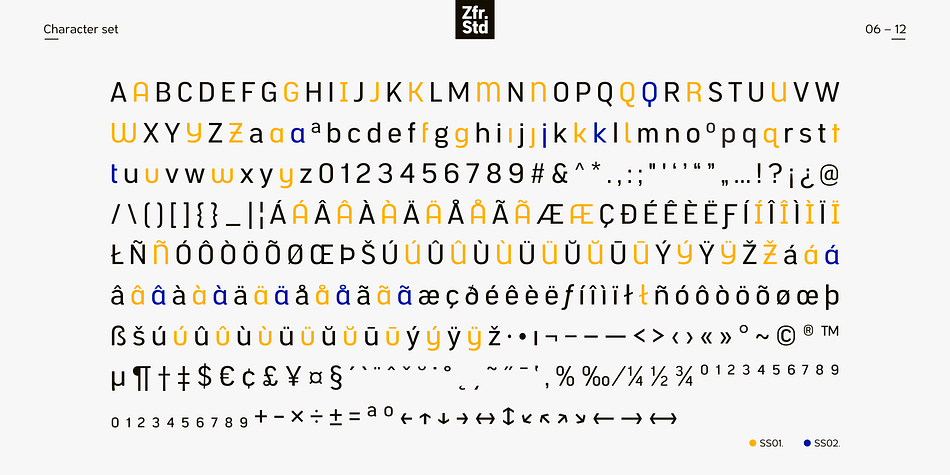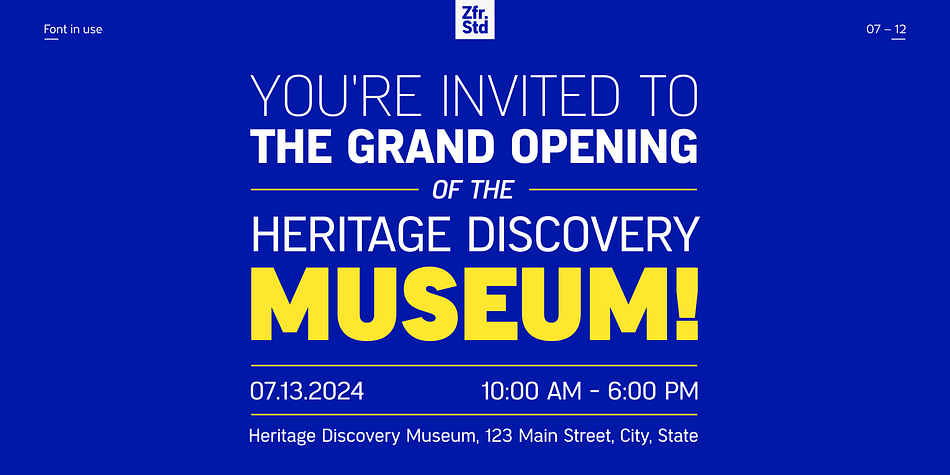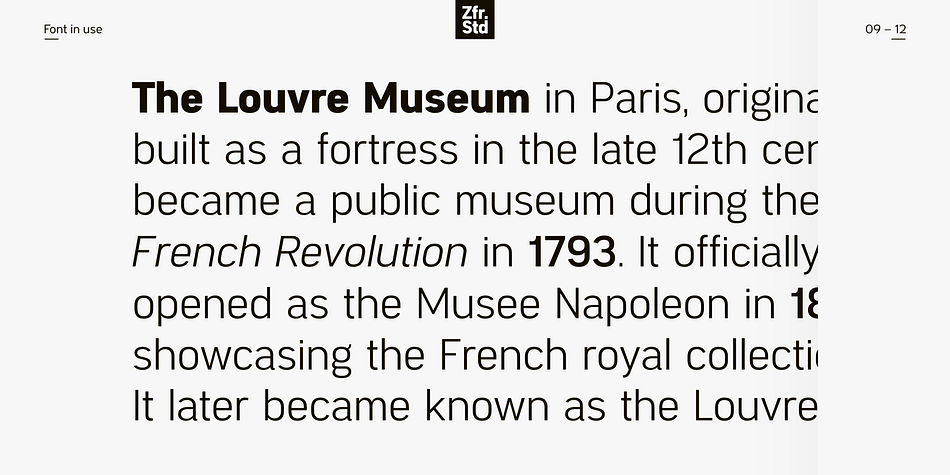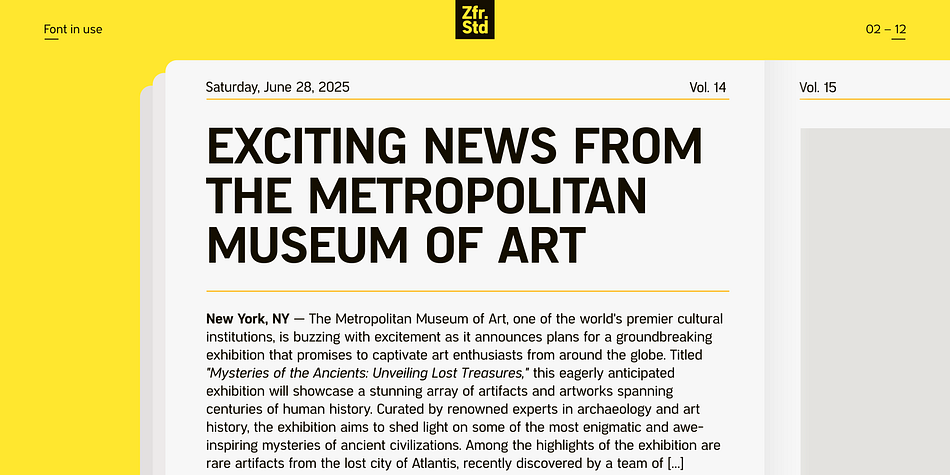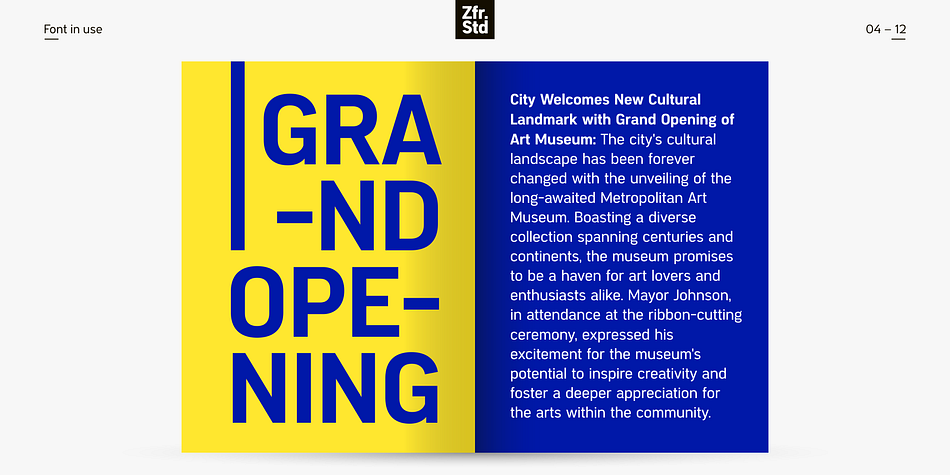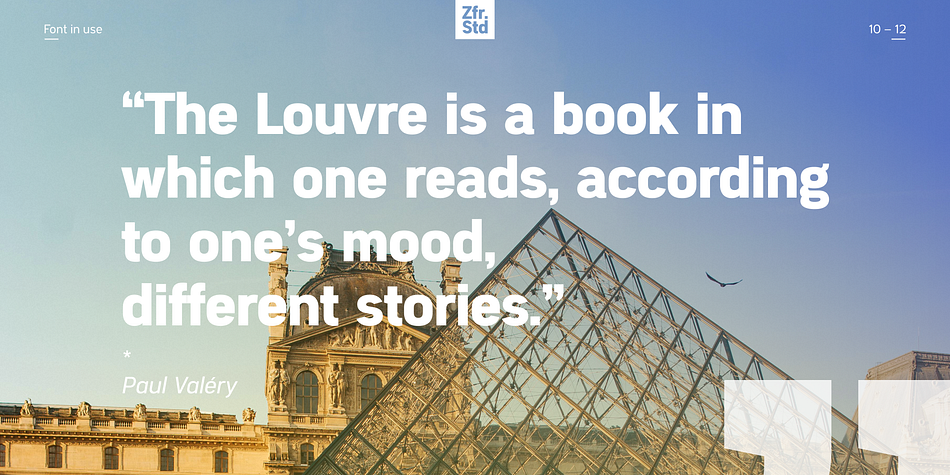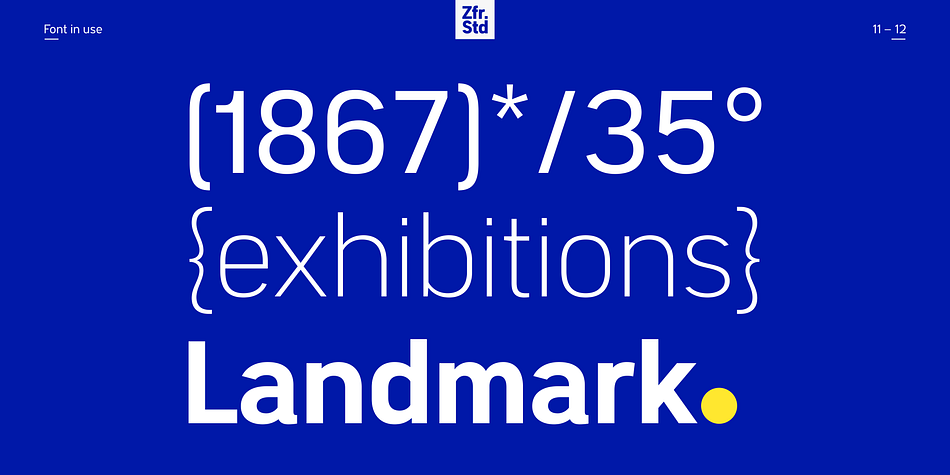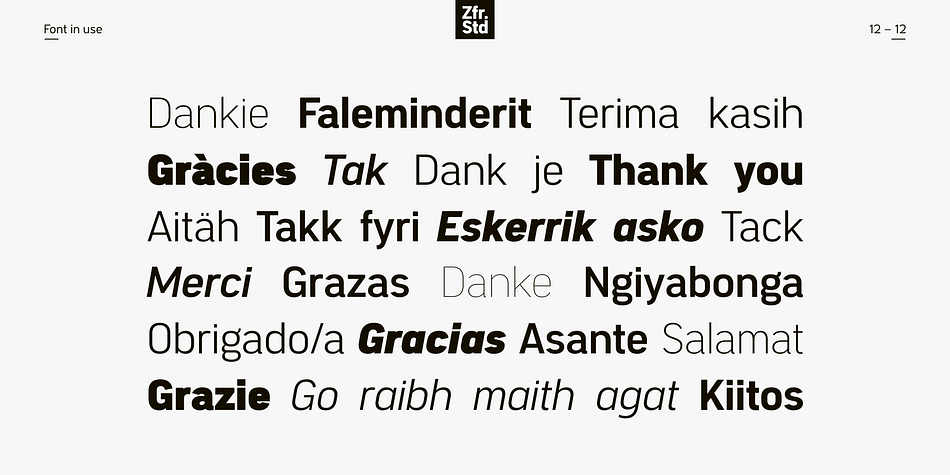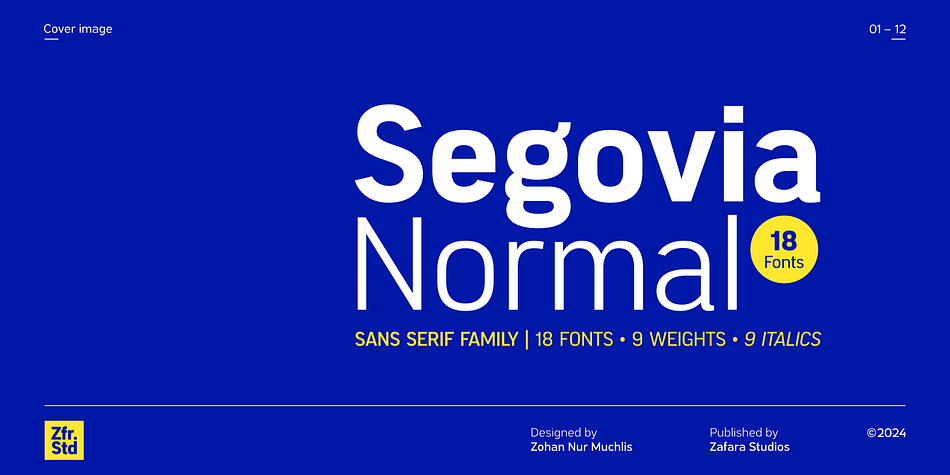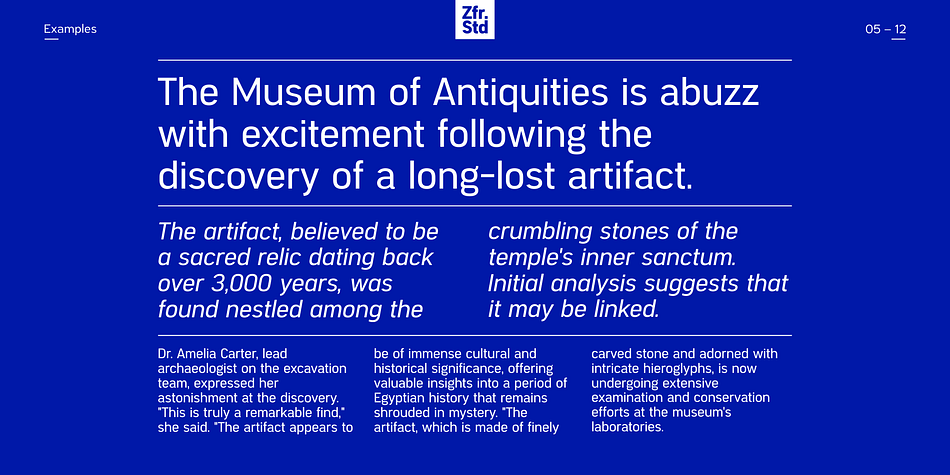
Segovia Normal
Segovia Normal is a sans serif font family. This typeface has eighteen styles and was published by Zafara Studios.
Segovia Normal is a sans-serif font designed specifically for headlines and titles. Comes with 9 weights and matching italics, making it 18 styles. It makes perfect for all creative projects. Also, some alternative glyphs will be an attractive choice. Segovia Normal is the perfect choice for logos, titles, headlines and short blocks of text.
- 364 glyphs: uppercase, lowercase, multilingual, numbers, punctuation, superscript, subscripts, ordinals, fractions, stylistic alternates, arrows, currency
- 9 weights: thin, extralight, light, regular, medium, semibold, bold, extrabold, black
- 9 italics
- 25 languages: Afrikaans, Albanian, Basque, Catalan, Danish, Dutch, English, Estonian, Faroese, Filipino, Finnish, French, Galician, German, Icelandic, Indonesian, Irish, Italian, Malay, Norwegian Bokmål, Portuguese, Spanish, Swahili, Swedish, Zulu